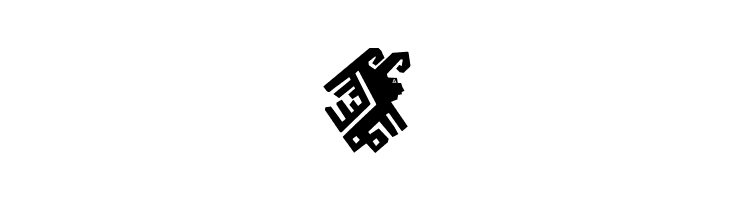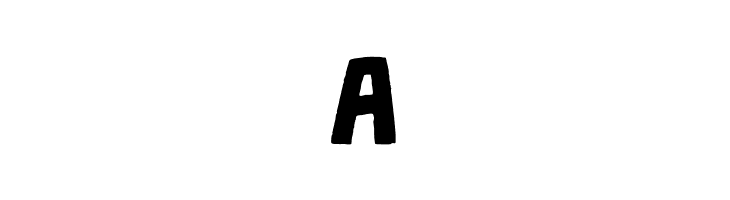
A playful, bold font with a hand-drawn, casual style.
A playful, hand-drawn font with bold, rounded characters.
A decorative font featuring graphic arts and drafting tool symbols.
A pictorial font featuring diverse animal and insect illustrations as glyphs.
An abstract, decorative font with geometric line patterns.
A bold, gothic-style font with sharp, intricate details.
A playful, bold font with characters enclosed in rounded black shapes, ideal for creative projects.
A bold, playful font with rounded, thick strokes and a cartoon-like appearance.
A bold, geometric font with a vintage diner-inspired style.
A bold, geometric font with a vintage, industrial style.
A bold, geometric font with a strong, industrial feel.
A bold, shadowed font with a strong, geometric style.
A playful, decorative font with bold letters and floral embellishments.
A bold, shadowed decorative font with a three-dimensional effect.
A bold, pixelated font with a retro digital display style.
Ornate, tribal-inspired pictorial font with bold, intricate glyphs.
A geometric, angular font with a futuristic and bold style.
A playful, hand-drawn font with a sketch-like, textured appearance.
A playful, sketch-like font with a hand-drawn appearance and textured strokes.
A playful, hand-drawn font with bold, irregular strokes and quirky shapes.
A bold, futuristic font with geometric shapes and a dynamic style.
A futuristic, geometric font with interconnected lines and circles.
A tall, narrow serif font with high contrast and elegant style.
An elegant serif font with sharp serifs and moderate contrast, suitable for formal and modern uses.
A bold, dynamic serif font with sharp, angular serifs and a cohesive appearance.
An elegant, calligraphic script inspired by fantasy languages.
A decorative script with flowing, intricate lines inspired by Tengwar.
An ornate, historical script with intricate flourishes and a calligraphic style.
An ornate and decorative script font with a classic German style.
A bold, high-contrast blackletter font with intricate, ornate letterforms.
A bold, geometric font with Art Deco influences and clean lines.
A geometric, art deco-inspired font with bold lines and angular curves.
A bold, geometric font with a vintage poster style.
A bold, italicized font with angular, dynamic characters.